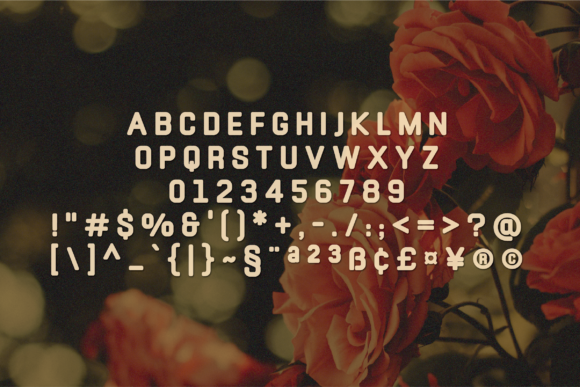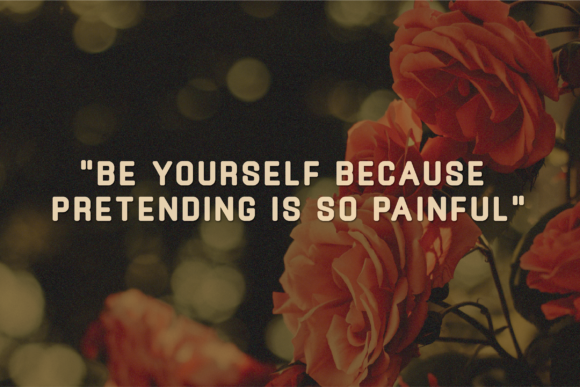
Discovering Clomous: My New Favorite Font
I still remember the design moment when I stumbled upon Clomous – I was working on a logo project for a client who wanted a clean, modern look that would appeal to a wide audience. I had been searching for the perfect font for hours, trying out various sans serifs, but nothing seemed quite right. That was until I saw Clomous in action. Its smooth lines, subtle contrast, and versatility immediately caught my eye, and I knew I had found the one. In this article, I’ll share my love for Clomous, its features, and how to make the most of it in your designs.
An Honest Review of Clomous
What I Love About Clomous
- ✨ Smooth and clean lines: Clomous has a sleek, modern aesthetic that’s perfect for logos, branding, and web headings.
- ✅ Versatility: This font works beautifully in various contexts, from digital to print, and in different sizes.
- 🌟 Subtle contrast: The font’s subtle contrast adds depth and visual interest without being too overpowering.
- 💻 OpenType features: Clomous supports OpenType features, including glyphs and stylistic alternates, giving you more creative control.
While Clomous is an excellent font, there are a few things to keep in mind:
- ⚠️ Not suitable for body text: Due to its clean and modern design, Clomous might not be the best choice for large blocks of body text.
The Designer Behind Clomous
Clomous was designed by a talented typographer who aimed to create a font that would be both clean and elegant. The designer’s inspiration came from the beauty of modern architecture and the need for a font that could convey simplicity and sophistication. With Clomous, the designer aimed to create a font that would be versatile and highly legible, making it perfect for a wide range of design applications.
| Font Name | Clomous Font |
| Author | Huntype |
Q: What is Clomous?
Clomous is a modern sans serif font designed for use in logos, branding, and web headings. Its clean lines, subtle contrast, and versatility make it a great choice for various design projects.